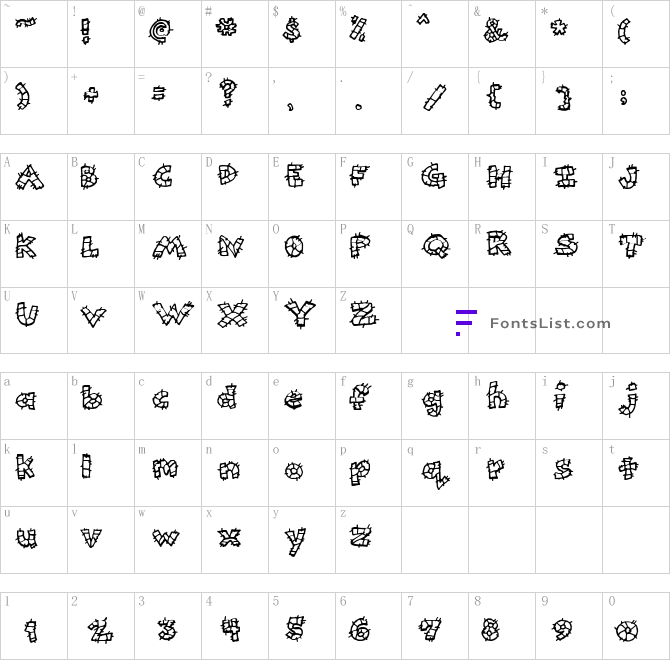
- Font Name:AnniesPatchStripes
AnniesPatchStripes.ttf is a very beautiful artistic font, AnniesPatchStripes.ttf is widely used in the design and printing of various books and pictures,AnniesPatchStripes.ttf has a strong visual impact,AnniesPatchStripes.ttf is a commonly used font in newspapers, magazines and books, and is used in posters, e-commerce Poster design, store design, logo design, font design and other fields.AnniesPatchStripes.